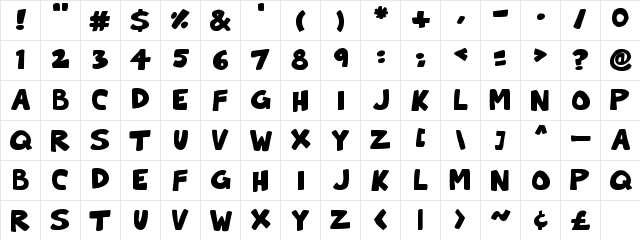
Toon Cats Regular
Design Context for Toon Cats Typeface
Toon Cats is a composed and adaptable typeface that performs quietly and consistently across a wide range of design contexts.